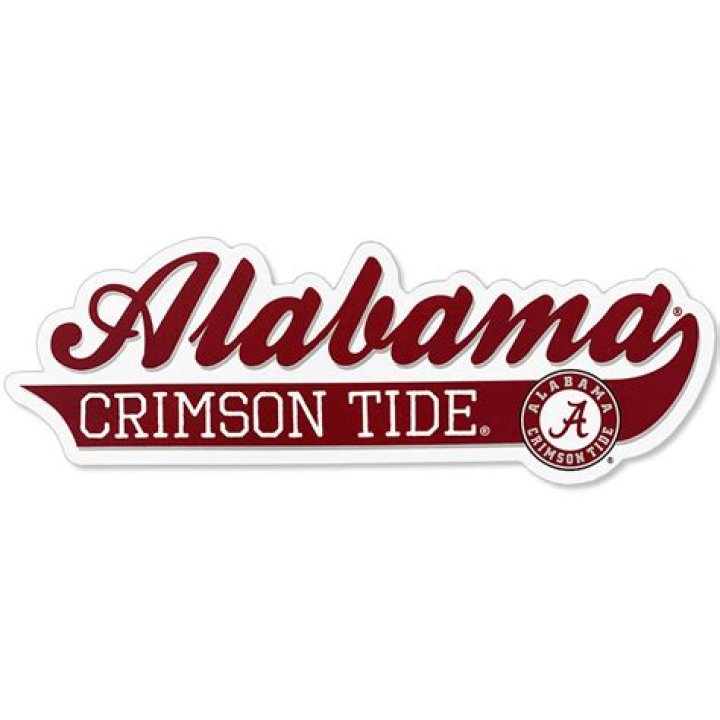
What font is Alabama Roll Tide?
The University of Alabama maintains a high standard in how we manage and maintain our brand image through type. Minion Pro and Trade Gothic are the two officially approved UA typefaces that allow flexibility through a multitude of typestyles.
What font does the Tide logo use?
The main emphasis is on the capital “T,” which the designers have lengthened, then shortened. The rest of the letters are lowercase. In general, the word “Tide” is in a custom sans serif font and has slightly pointed ends at two characters.
What does it mean to say Roll Tide?
Roll Tide is among the most well-known phrases in college football. It functions as a celebratory exclamation, a warm greeting, an acknowledgement akin to the friendly nod of a head, and a connection to University of Alabama fans across the world.
Why is University of Alabama called Roll Tide?
The term coined because the red mud stained the Alabama white jerseys crimson. Alabama held Auburn, the favorite to win, to a 6-6 tie, gaining the name the ‘Crimson Tide. It was said the team looked like the tide was rolling in thus gaining the chant ‘Roll Tide. ‘”
Why is Alabama called the Crimson Tide?
Crimson Tide Story
The game was played in a sea of crimson mud and the Alabama players’ white uniforms were stained crimson. As a sports editor for the Birmingham Age-Herald, Hugh Roberts, left the field, he described Alabama as a Crimson Tide. Sports writers then popularized the name and it’s stuck ever since.